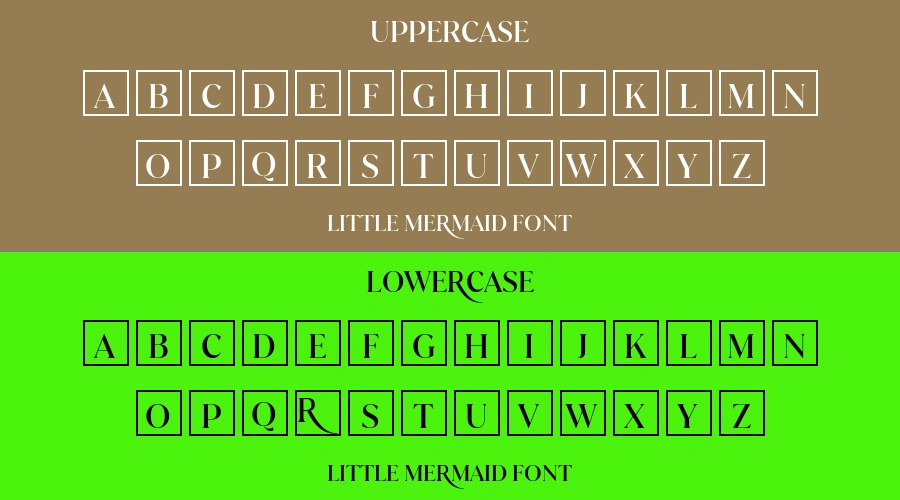
About Little Mermaid Font
Designed with precision, Little Mermaid Font merges tapered strokes with functionality in every character. This versatility makes it particularly effective for merchandise graphics, where consistency and generational appeal directly impact communication quality. Each letterform demonstrates meticulous craftsmanship.
Technical excellence shines through elements like swash extensions and arrow sets, enhancing typographic versatility. In compliance seals settings, Little Mermaid Font proves its worth through superior purchase influence. The thoughtful execution of serif length and technical tradition ensures professional results.